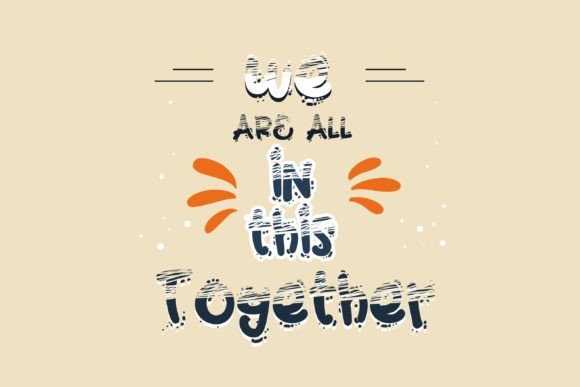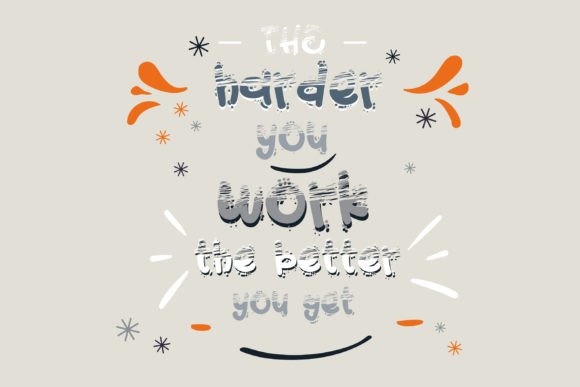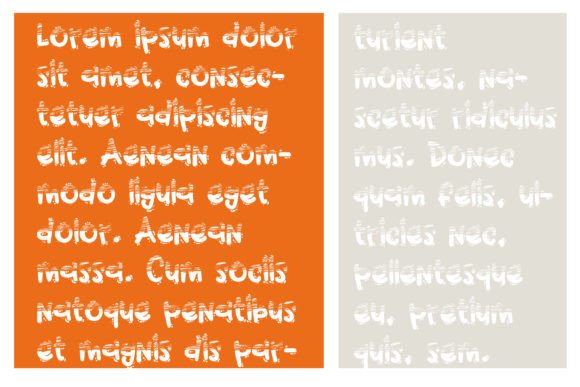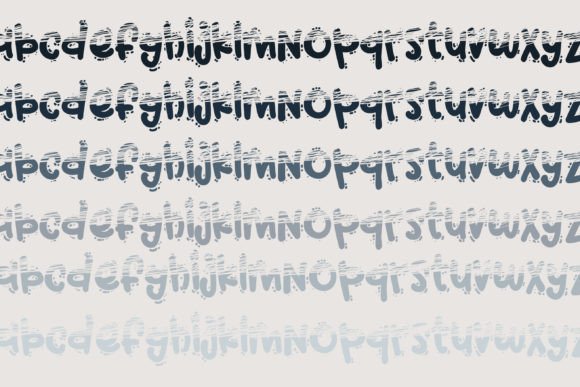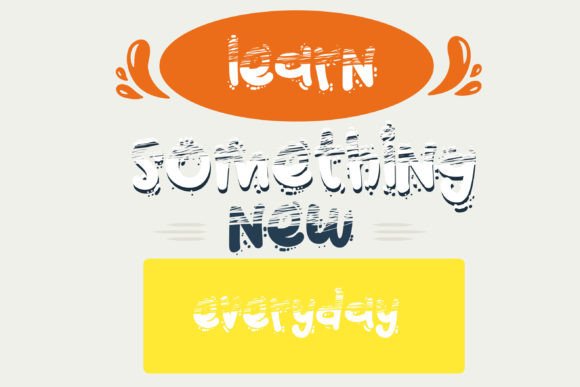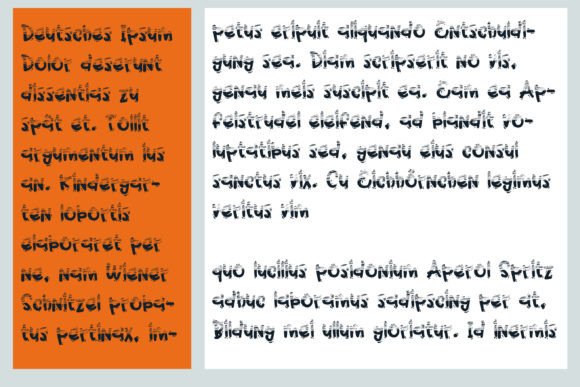
Eager Eraser Font: Unleashing Creative Expression with a Touch of Imperfection
In the realm of typography, few fonts manage to capture the essence of spontaneity and creativity as effectively as the Eager Eraser font. This unique typeface has been gaining popularity among designers and crafters for its distinctive charm, which brings a playful twist to traditional handwritten artistry. With its characteristic drips and spills, Eager Eraser infuses text with a dynamic, organic feel that is both captivating and endearing.
The Allure of Handwritten Artistry with a Twist
Eager Eraser font embodies the allure of handwritten artistry but with a noticeable twist. Unlike conventional fonts that strive for precision and uniformity, Eager Eraser celebrates the beauty of imperfection. Its playful drips and spills give the impression that the text was scribbled with enthusiasm and then partially erased, as if in a hurry or with a playful flick of the wrist. This distinctive feature not only sets Eager Eraser apart from other fonts but also adds a layer of personality and whimsy to any design.
Capturing Spontaneity and Creativity
At the heart of Eager Eraser’s appeal is its ability to convey a sense of spontaneity and creativity. The font’s irregularities and quirks evoke a feeling of being handmade, bringing a human touch to digital designs that can often feel sterile or impersonal. Whether you’re crafting invitations, designing eye-catching headlines, or simply looking to add a personal touch to your digital communications, Eager Eraser offers a refreshing alternative to more traditional typefaces.
Applications of Eager Eraser Font
The versatility of Eager Eraser font makes it suitable for a wide range of design projects. Here are a few ways designers and crafters can make the most of this unique typeface:
- Invitations and Announcements: Add a touch of whimsy and charm to your event invitations, making them stand out with a playful, handcrafted feel.
- Headlines and Titles: Use Eager Eraser to craft eye-catching headlines that demand attention, perfect for blog posts, magazine articles, or advertising campaigns.
- Branding and Packaging: Infuse your brand’s identity with a dose of creativity and personality, making your products or services more relatable and memorable.
- Digital and Social Media Content: Elevate your social media posts, digital newsletters, or website content with a dash of personality, engaging your audience on a more personal level.
Tips for Maximizing Eager Eraser’s Impact
To make the most of Eager Eraser font, consider the following tips:
- Mix and Match: Combine Eager Eraser with complementary fonts to create visual interest and hierarchy in your designs.
- Play with Colors: Experiment with different colors to enhance the playful, dynamic feel of the font, choosing hues that reflect the mood or personality of your project.
- Emphasize Key Elements: Use Eager Eraser strategically to highlight important information or calls to action, drawing attention with its unique charm.
Eager Eraser font offers a delightful blend of creativity, spontaneity, and whimsy, making it an invaluable asset for designers and crafters looking to infuse their projects with a personal touch. Its unique charm, characterized by playful drips and spills, not only captures the essence of handwritten artistry but also brings a refreshing sense of imperfection to the world of typography. Whether you’re a seasoned designer or a crafting enthusiast, Eager Eraser is sure to inspire your creative expression, adding a touch of delightful imperfection to your designs.